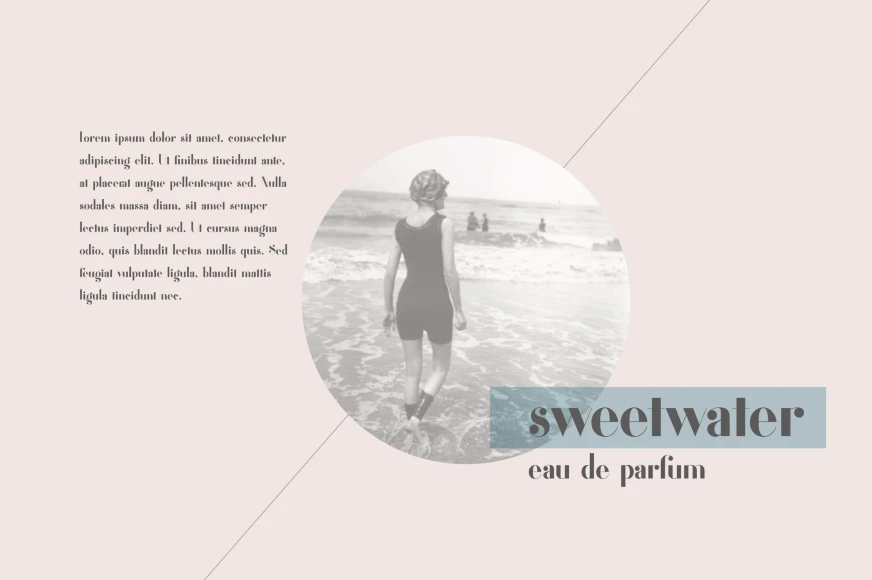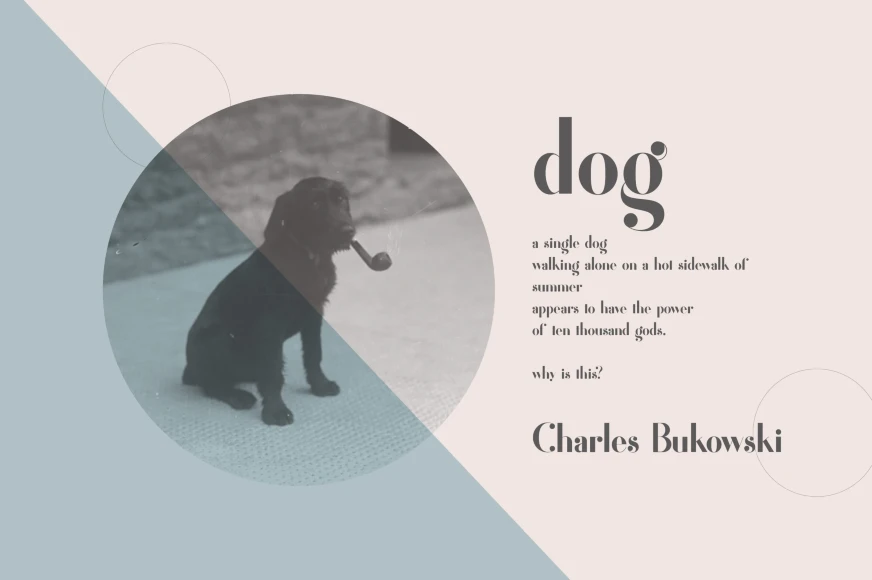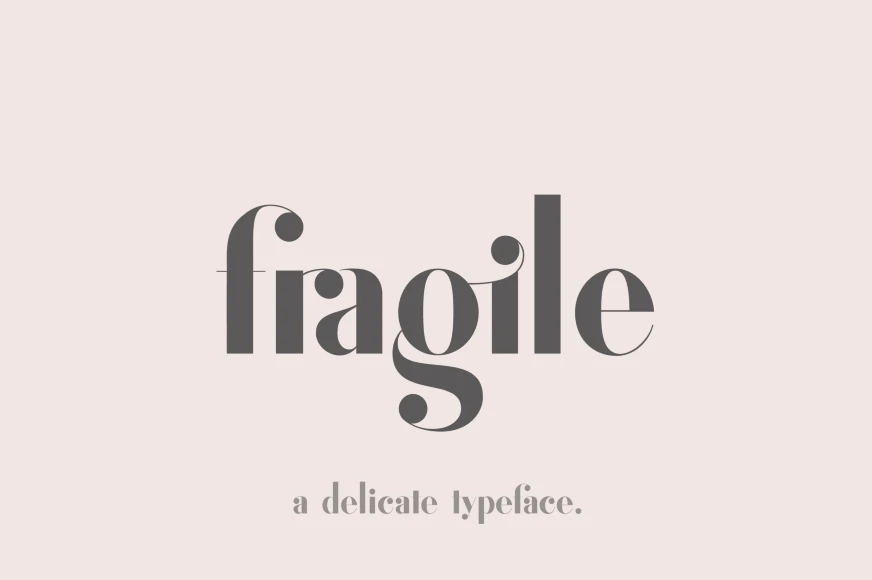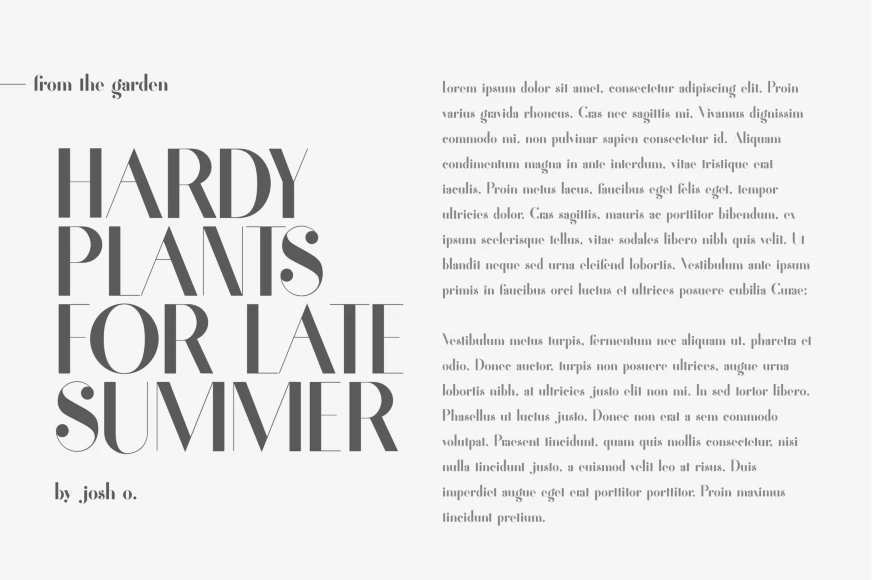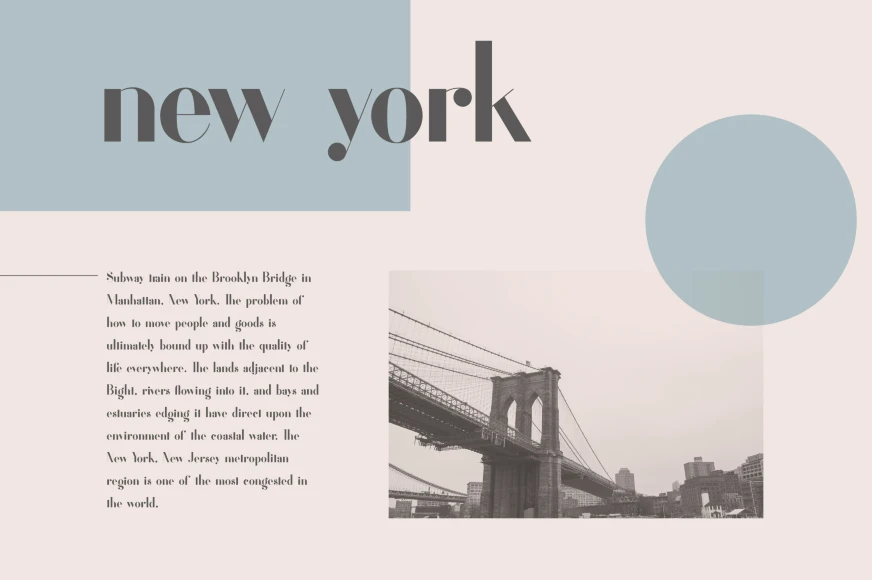
Fragile
By Josh Ownby
Fragile Regular
Fragile is a delicately vintage typeface perfect for creating gorgeous statement-making designs with personality. Based on vintage letterforms from the 1960s and 1970s, this high-contrast design is an excellent choice for vintage graphics. Create gorgeous all-caps headlines or try the lowercase for a simply beautiful, delicate look. The clean lines and ball terminals give a sleek, elegant look to logos, wedding invitations, editorials, and more.